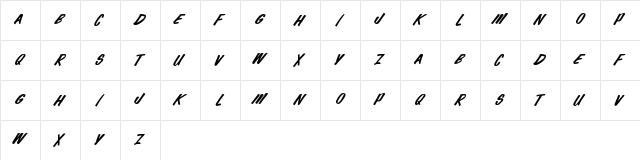
The Quick Marker Regular
| Foundry | Font Monger |
| Designer | Chris Vile |
Design Context for The Quick Marker Typeface
The Quick Marker is a composed and adaptable typeface that performs quietly and consistently across a wide range of design contexts.